Sans-serif font originated in the 18th century but did not become widely used until the 19th century. In the world of print, serif typefaces are almost universally used to establish body text. running, however, on the web, sans-serif typefaces prevail. Here we have 10 best Sans-Serif recommend you to use to make your designs more impressive.
1 Space Odyssey - Modern Sans
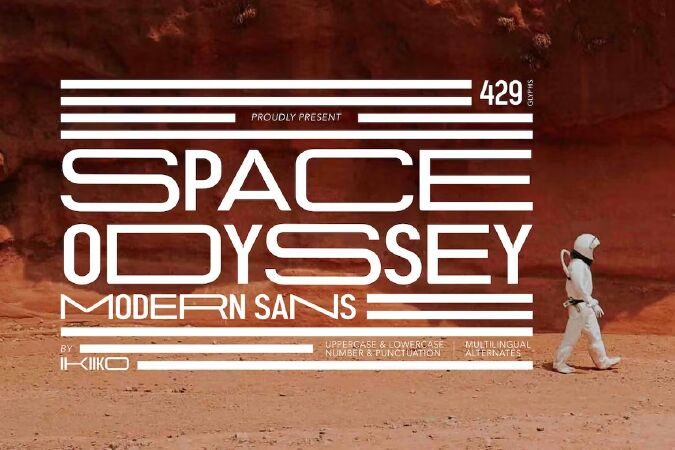
Introducing Space Odyssey - Modern Sans, created by ikiiko.
Space Odyssey is a display type with a character of semi-condensed sans serif combined with stretched font characters. This letter has a choice of stretch shapes to play with that. This typeface is perfect for an logo, branding, layout magazine, fashion stuff, quotes, or simply as a stylish text overlay to any background image.
- Alternates
- Multilingual Support
2 Parlour Sans
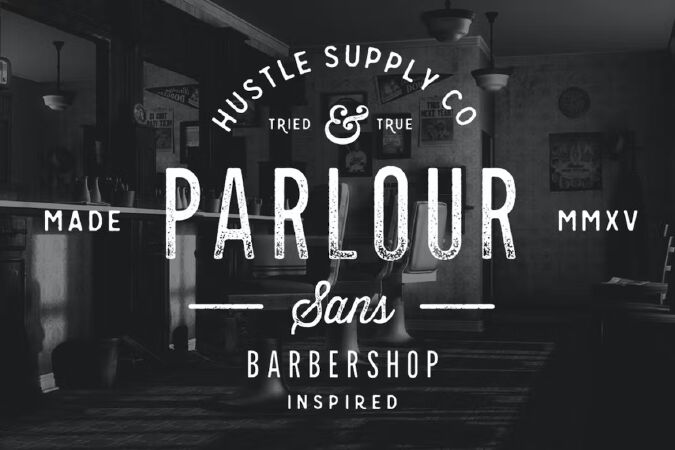
Parlour Sans
If you liked Parlour, you'll love Parlour Sans! "Parlour Sans"is a display typeface inspired by Movember, Menswear Brands, Tattoo Shops & Barbers. This versatile font is perfect for your next project. This font comes with the texture already applied in lowercase and with no degradation in Uppercase. Created with the software, "Glyphs", this font comes in OTF format with a full alphabet, numbers, punctuation & other extra glyphs.
3 Coffee Morning Sans
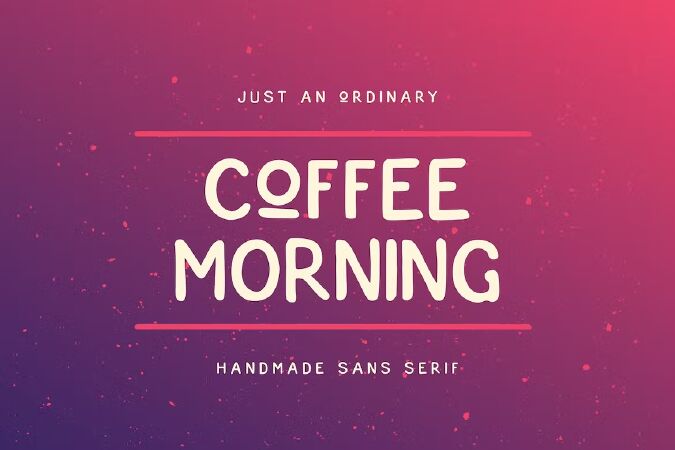
Coffee Morning Sans
Coffee Morning is just an ordinary handmade sans serif font. But it may be speak louder, because its imperfectness. Rough stroke, imperfect shapes, make this typeface has its taste, like coffee in the morning, strong and bold.
4 Enigma Typewriter Sans Font
Enigma Typewriter is a font that helps you to recreate old documents and papers. I created this font inspired by Enigma German machine.
5 High Sans Serif - Elegant Luxury Sans Serif
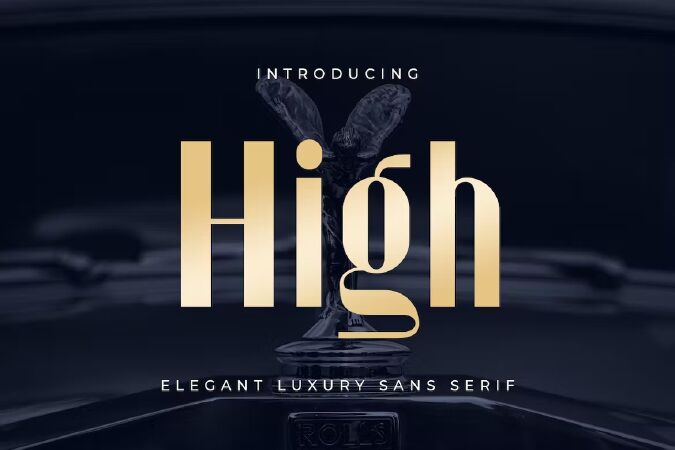
New Elegant Luxury Sans Serif that we created special for elegant projects with extra ligature and alternates in unique shape will be ready to add value of your brand. It so nice to leverage designer or product owner that need solutions to make their design look more elegant and luxury. And specially for High font, We prepared any ligatures and any alternate characters to help you create unlimited variations for your creative needs.
High Sans serif font ready with:
- Any options to get creative variations (combination of Alternate and Ligatures)
6 Sprout - Sans Serif
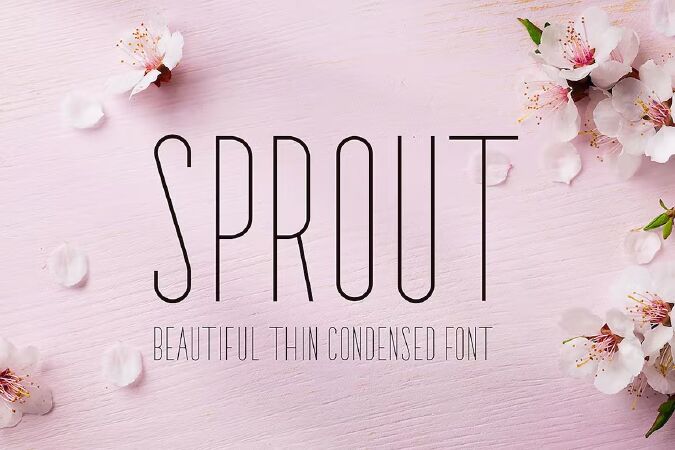
Introducing: Sprout! A beautiful and elegant Thin Condensed Sans Serif font perfect for crafting all your wedding designs. It's also perfect for that feminine and delicate look that you want in your invitations, wedding albums, website, etc.
7 BILMA - Sans Serif
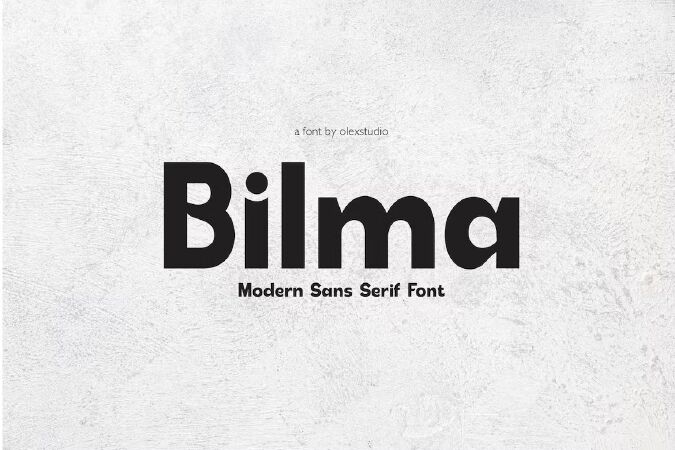
BILMA - Sans Serif is a modern sans serif Font will look gorgeous on all your designs,
8 Hoodger Sans-Serif
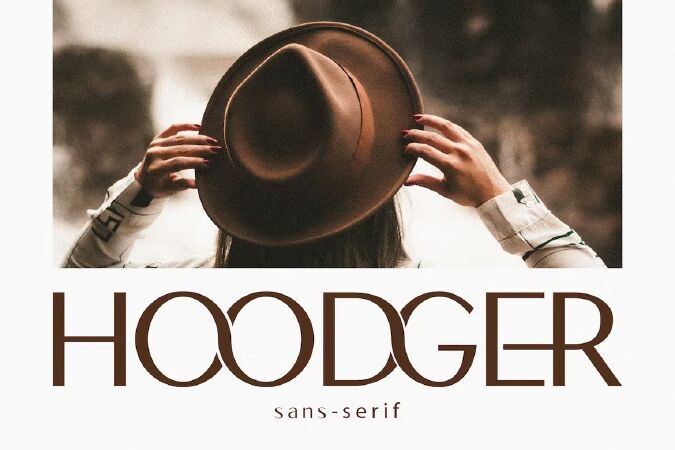
Best sans-serif font to make your designs more impressive. Image: elements.envato.com
Introducing the Hoodger Modern Sans-Serif Font. Neatness in each character of the letter is our top priority in making this font. Hoodger Sans-Serif fonts prioritize neatness and accentuate a modern and elegant impression. Hoodger fits for any design projects, such as posters, banners, logos, invitations, magazine covers, quotes, headings, printed products, social media, etc. Find out more ways to use this font by taking a look at the font preview.
9 Bllad Sans Serif
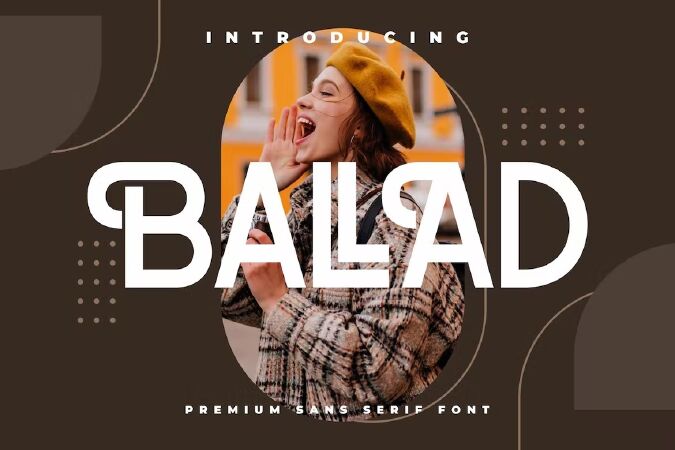
Best sans-serif font to make your designs more impressive. Image: elements.envato.com
Hi ladies & gentlemen, this is one of our fonts suitable to complement your digital and printed creative products. This font is perfect for posters, social media posts, branding, personal projects, etc.
10 Etna Sans Serif
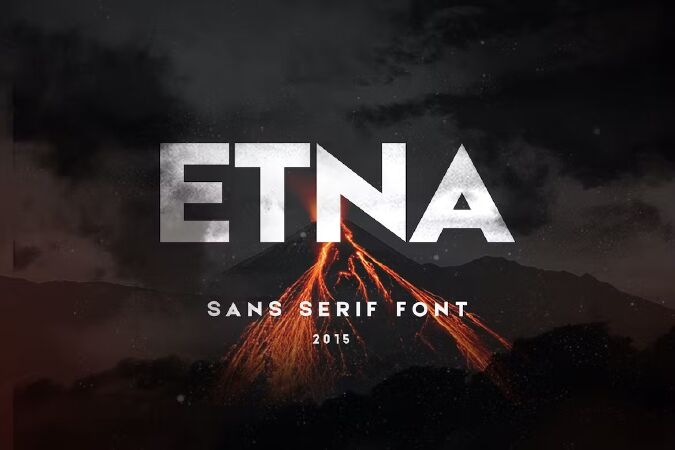
The ETNA comes with 415 glyphs, cyrillic and latin extended. The typeface is custom made with maximum precision and sourcing high aesthetics. The flow of the letters is seamless and easy to read with great bold accents